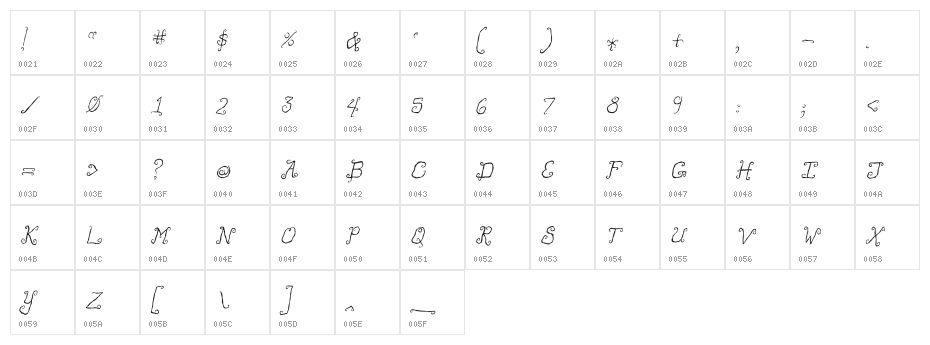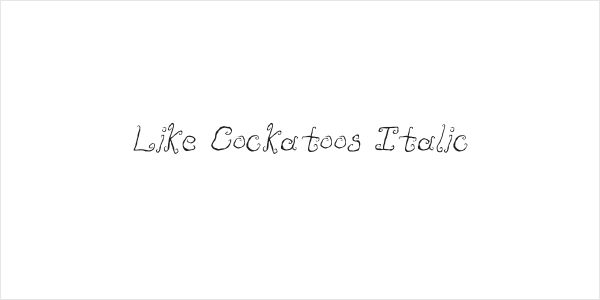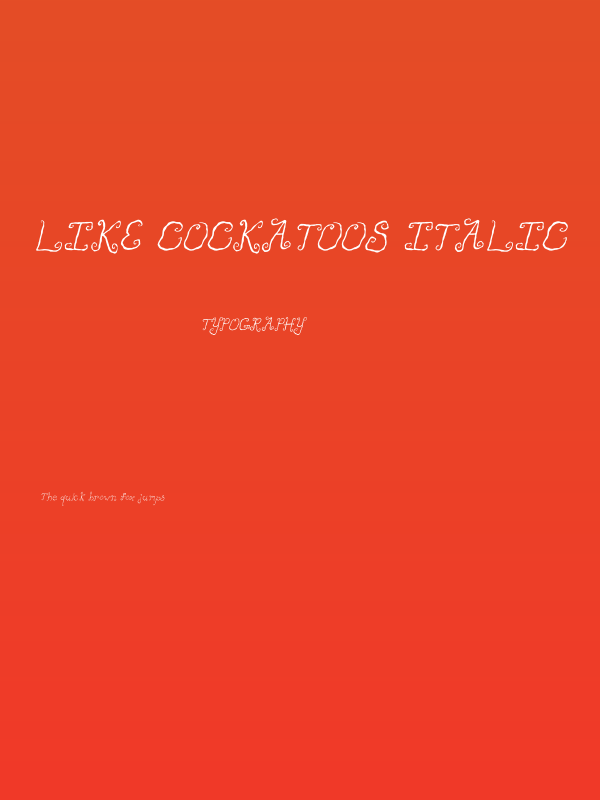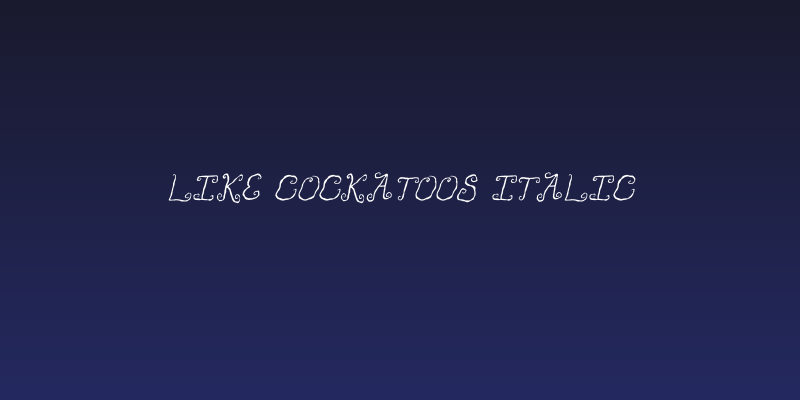
Like Cockatoos Italic Font
Like Cockatoos Italic Description
This font features a whimsical and playful design with a handwritten style. The characters are adorned with unique curls and loops, giving them an artistic flair. The uppercase letters are bold and expressive, while the lowercase letters maintain a consistent flow with a slightly italicized slant. Numbers and special characters follow the same decorative theme, making the font versatile for creative projects. The overall appearance is lively and dynamic, perfect for capturing attention and adding a touch of personality to any text.
| Proposed Projects | Ideal for greeting cards, invitations, children's books, and creative branding projects. |